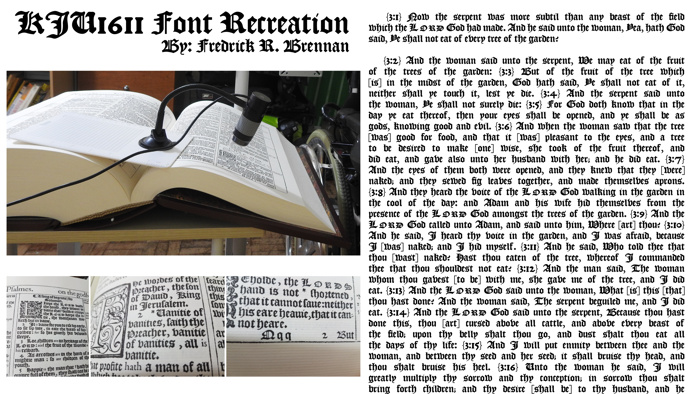
KJV1611 Font
More info from Fredrick Brennan
A complete digital OpenType font restoration of the typeface found in the 1611 King James Bible. https://github.com/ctrlcctrlv/kjv1611